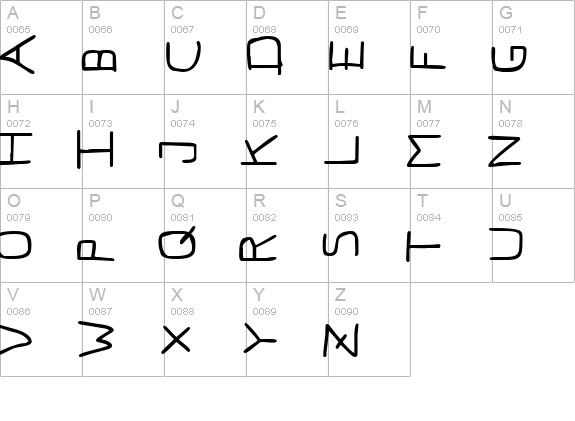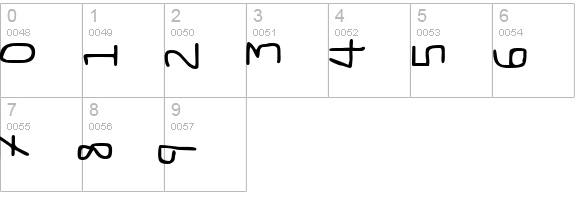
Pf_veryverybadfont7 sideways Font Details
Introducing Pf_veryverybadfont7 Sideways Font, a unique and eye-catching typeface that will add a touch of creativity to any design project. This font breaks the boundaries of traditional typography with its sideways orientation, making it a standout choice for those looking to make a bold statement. With its unconventional design, Pf_veryverybadfont7 Sideways Font is sure to capture attention and leave a lasting impression. Its playful and eccentric style brings a sense of fun and excitement to any text, making it perfect for headlines, titles, logos, and more. Whether you're designing a poster for a music festival or creating a standout social media post, this font will certainly make your message pop. And the best part? Pf_veryverybadfont7 Sideways Font is completely free! Yes, you read that right. This incredible font is freely available to download at FontsMarket.com. With just a few clicks, you can elevate your design projects without breaking the bank. So why wait? Unleash your creativity and give your designs a fresh and unique look with Pf_veryverybadfont7 Sideways Font. Download Pf_veryverybadfont7 Sideways Font today and let your imagination run wild. Whether you're a graphic designer, a student, or simply someone who appreciates the beauty of typography, this font is a must-have in your collection. Don't miss out on this opportunity to enhance your designs and make a lasting impression. Get Pf_veryverybadfont7 Sideways Font now, exclusively at FontsMarket.com.